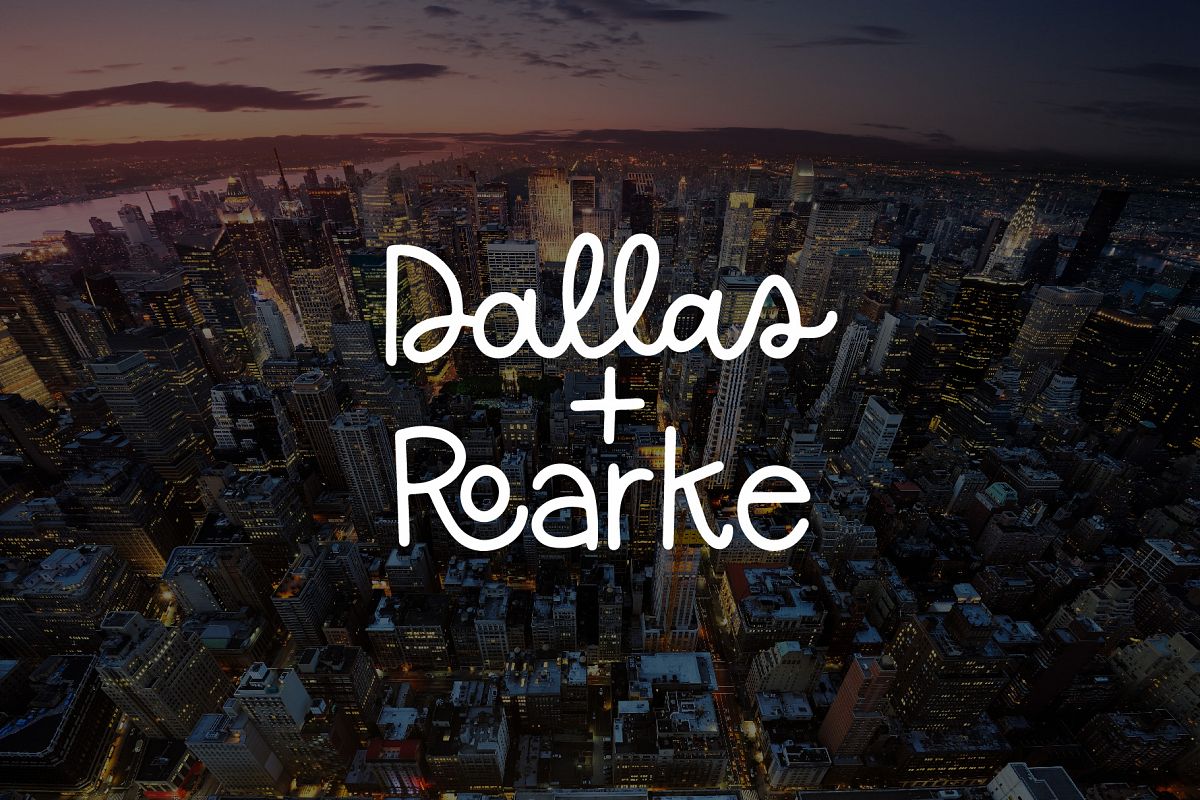
Dallas Roarke Font Duo
Meet Dallas + Roarke Font Duo. Inspired by one of my favorite book series, this simple sans serif, serif and script coordinate together perfectly!
I was spefically looking for a font with looping "l" and the photo showed it but there is no single looping "l" only if its two "ll".